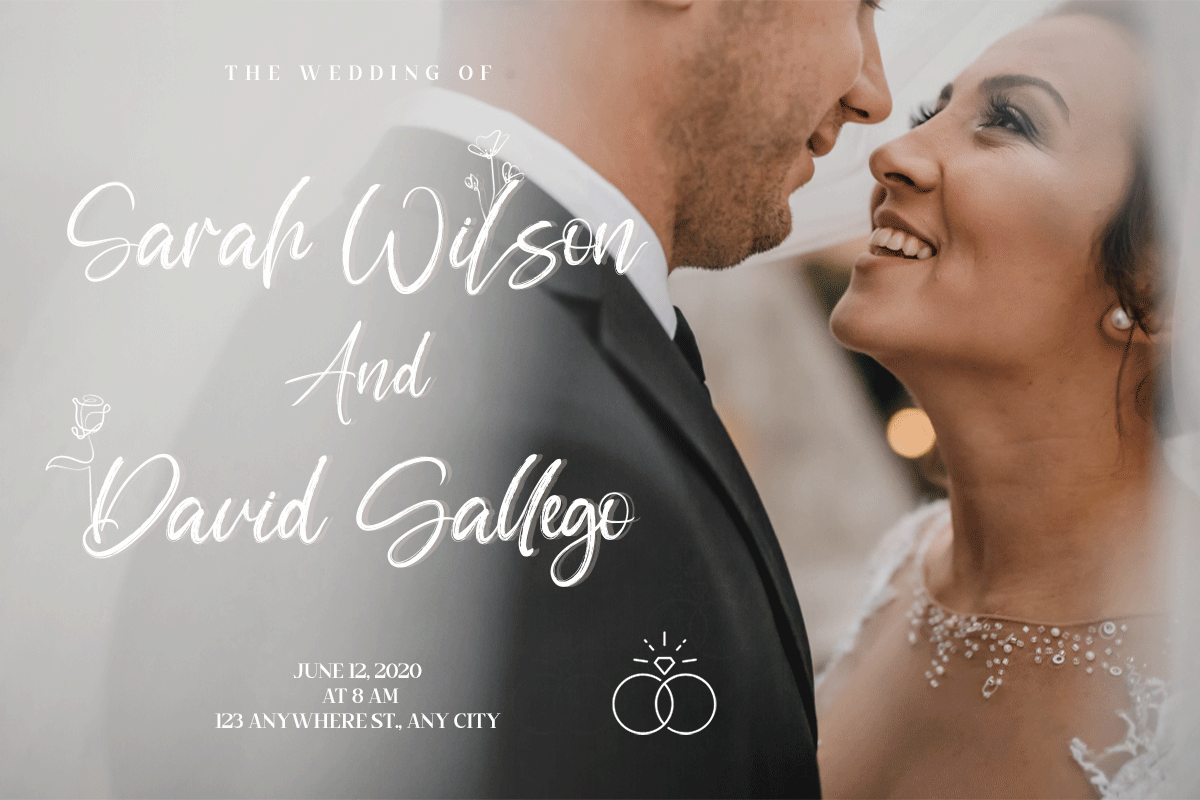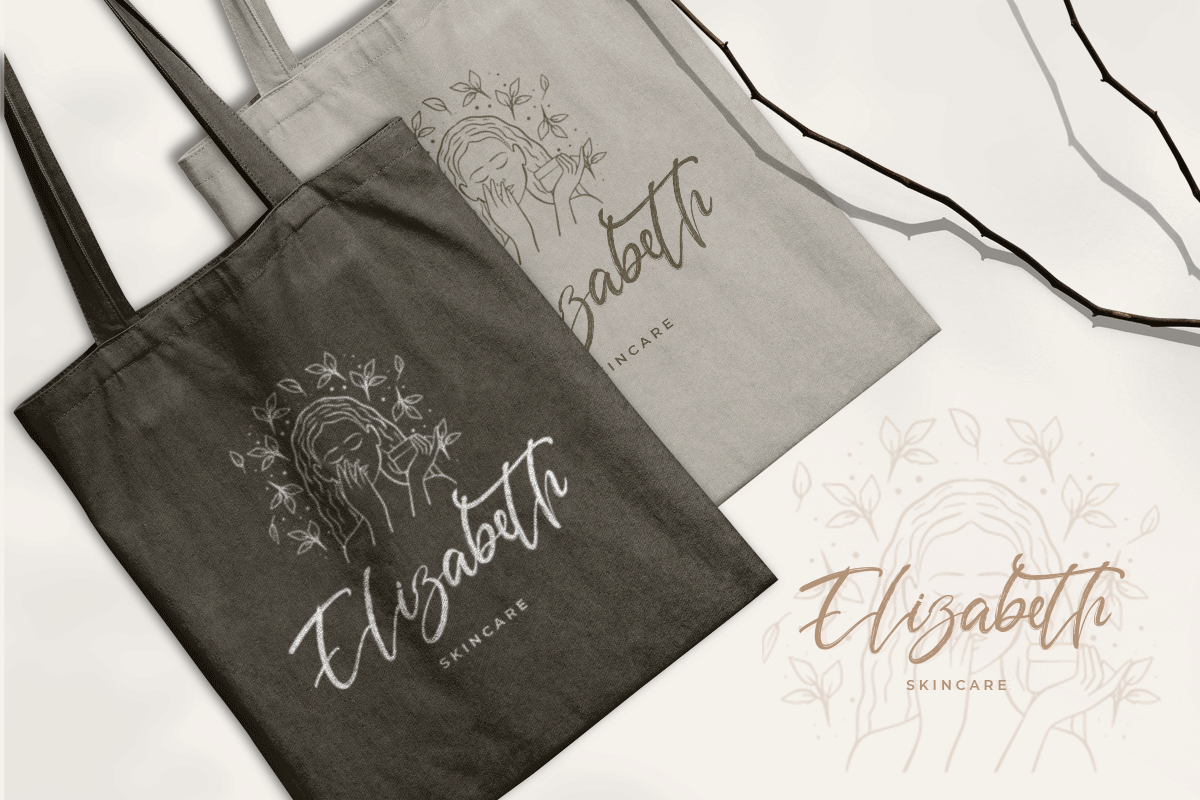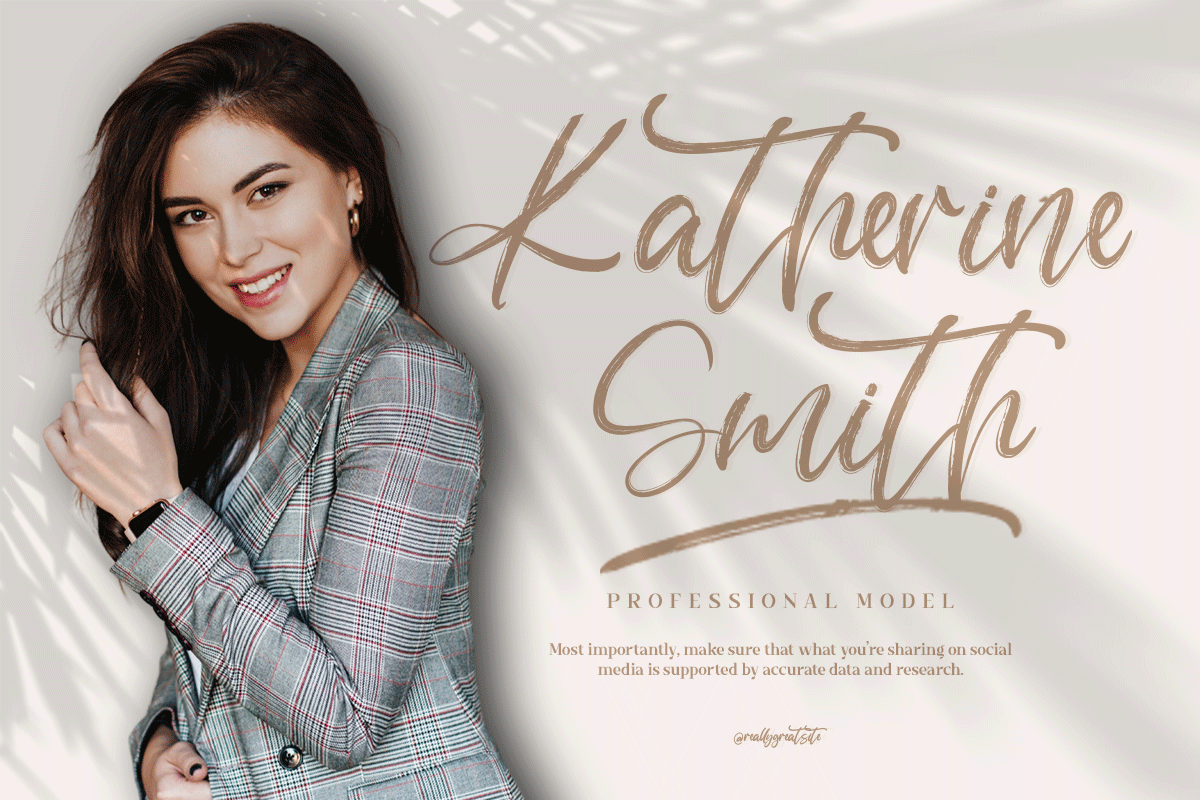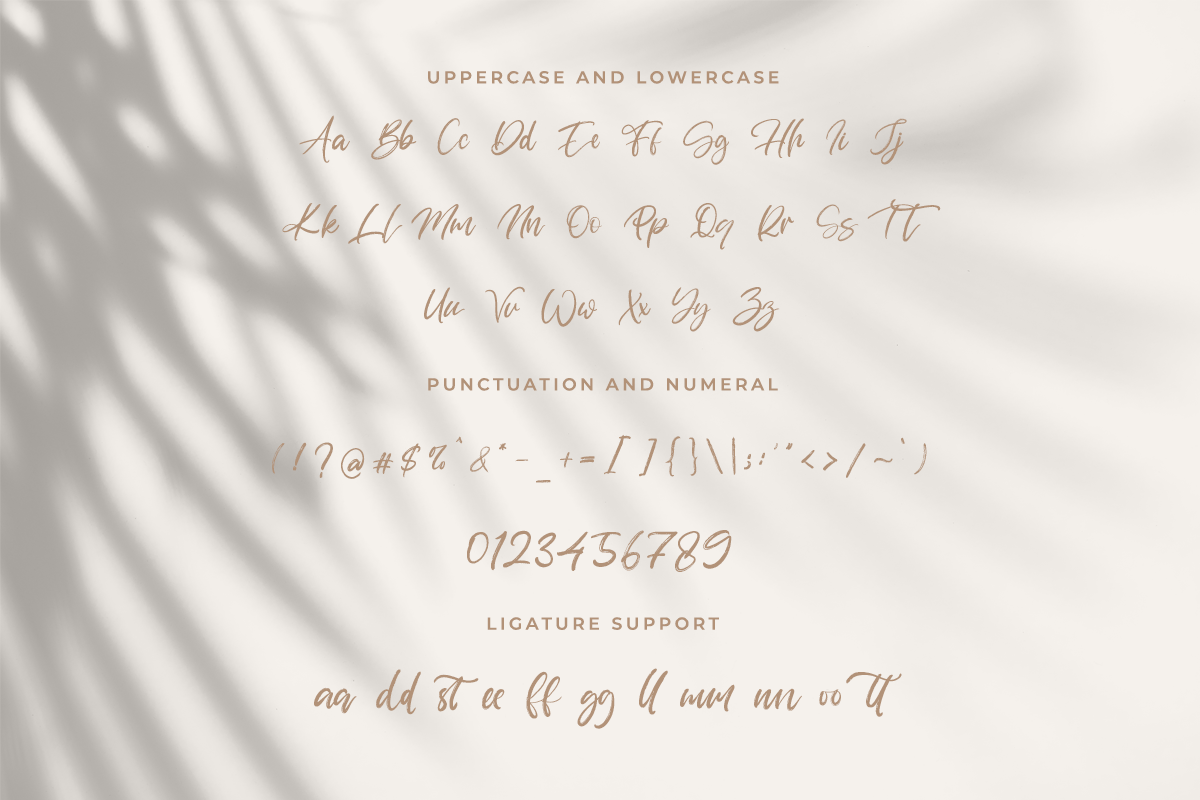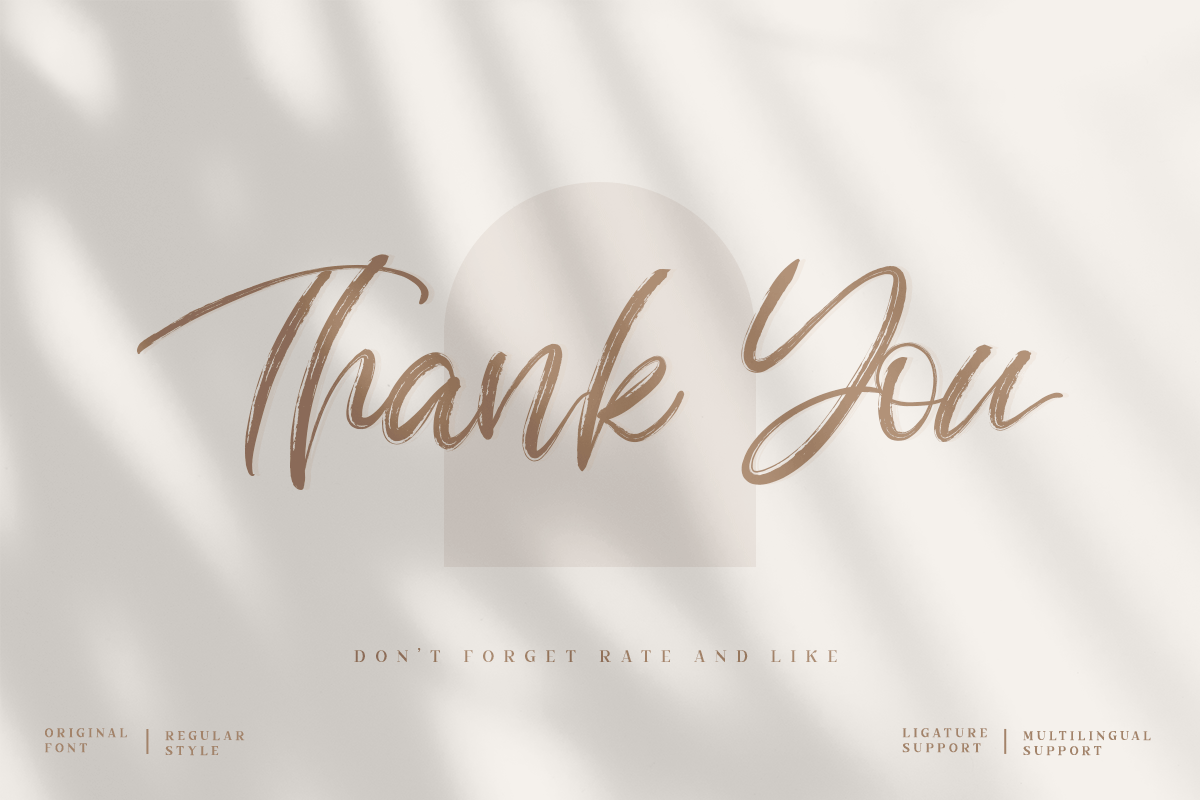
Hanista Handwritten Brush Font Hanista Handwritten brush font is a brush font that has an elegant appearance that many people like. The brush is used to create the Hanista font, so the beauty shines through and is very real. The brush used for this font has a medium tip, so the resulting strokes are curved and continuous. This typeface is perfect for using formal events like weddings, graduation days, or gender parties and baby showers. You can also use it on invitations, letters, souvenirs, or thank you cards. The Hanista font will give you a simple yet beautiful appeal. For other formal events like art exhibitions, you can use our Hanista Handwritten Brush Font on show titles, team shirts, signage, and other items. Combined with the suitable theme, supporting images, and atmosphere, the beauty of Hanista will shine like the sun shining in a room. Our collection of font brushes is compatible to use as Figma fonts, Canva fonts, Freepik Fonts, and Adobe Fonts. They also work as Windows Fonts and Apple Fonts. For your social media needs, you can use and install fonts in our brush typography collection to use as Instagram Fonts, Facebook Fonts, and Twitter Fonts.